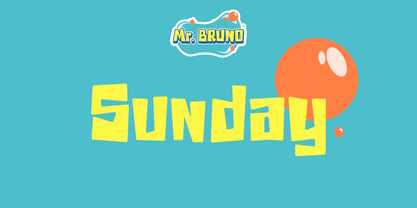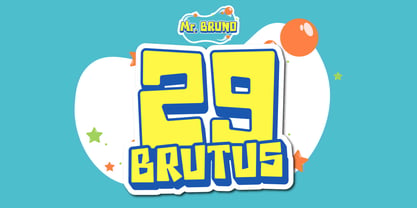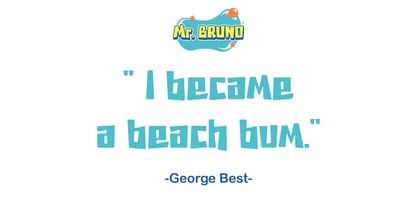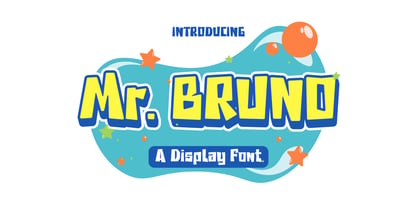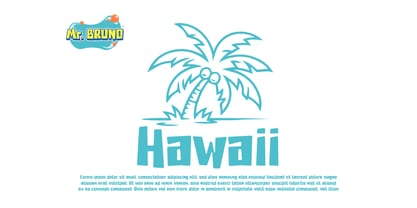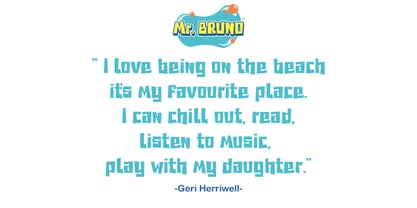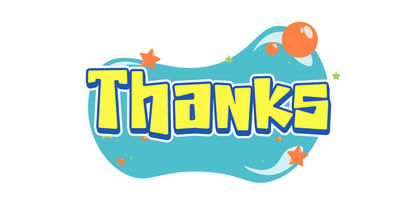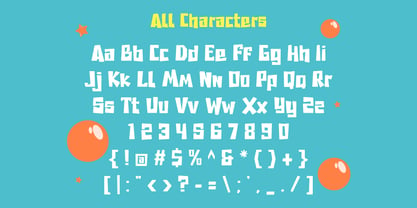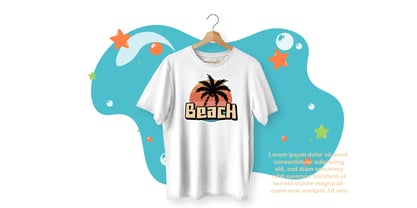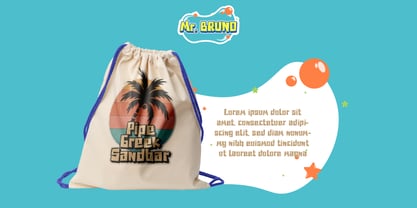
Mr. Bruno
by Patlot Digital Studio
The Mr. Bruno Font Family was designed by Gugun Gunawan and published by Patlot Digital Studio. Mr. Bruno contains 1 styles. More about this family
Mr.Bruno is a bold comic display typeface inspired by the popular series! This font is designed to add a truly unique touch to your creations, ensuring they stand out from the crowd – a must-have for cartoon-themed social media content, comic cover title designs, invitations, birthday cards, and more.
Mr.Bruno puts the flexibility of handwriting at your fingertips, adapting to a variety of formal and casual contexts, making it a dynamic addition to any creative project toolkit.
Designers: Gugun Gunawan
Foundry: Patlot Digital Studio
Patlot Digital Studio was founded in 2022 and is managed by Gugun Gunawan. I love drawing letters. I want to continue developing my creativity and using my passion to provide greater benefits for myself and the design community. I founded Patlot Digital Studio to help designers choose their projects. I create handwritten fonts, script fonts, and display fonts. Now I pursue my new passion full-time from my home studio.